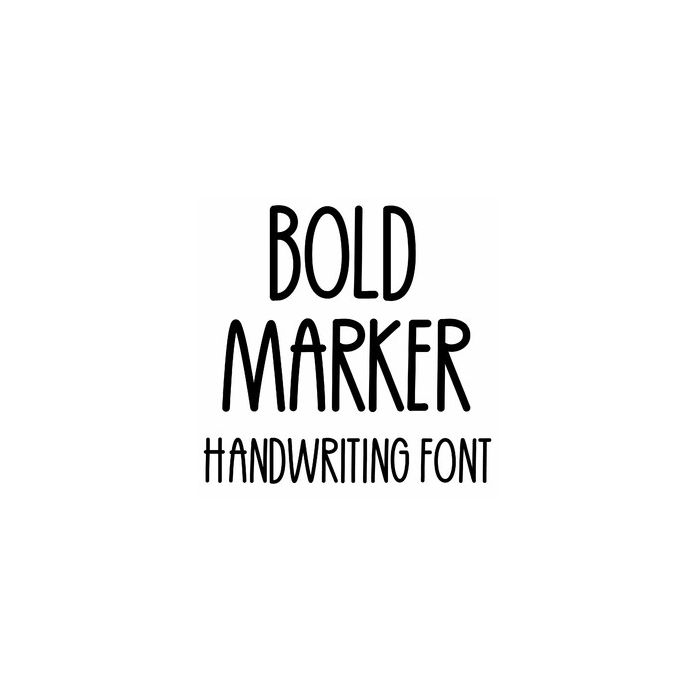
This bold marker handwriting font is fun for Holiday and birthday crafts, planners, notes, calendars, and personalization projects. All caps, includes alphabet, numbers, and punctuation.